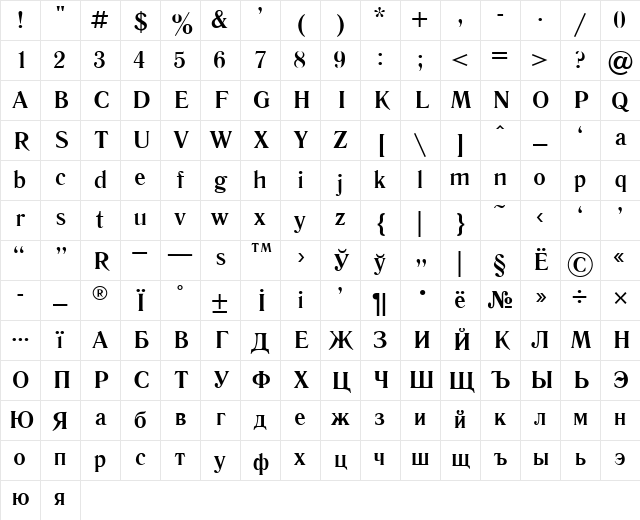
Literaturnaya Bold Free Font
Literaturnaya Bold
Design Context for Literaturnaya
Literaturnaya is a composed and adaptable typeface that performs quietly and consistently across a wide range of design contexts. Its bold stroke weight gives it real presence on the page.